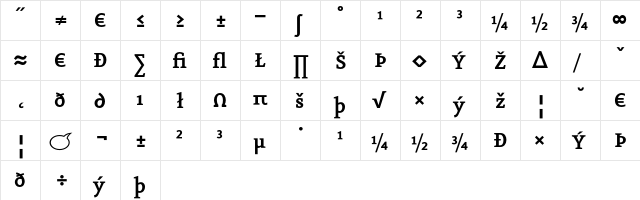
Eureka Bold Exp Font Preview
Eureka Bold Exp
Design Context for Eureka Typeface
Eureka is a composed and adaptable typeface that performs quietly and consistently across a wide range of design contexts. The heavy weight commands attention and anchors typographic hierarchies.